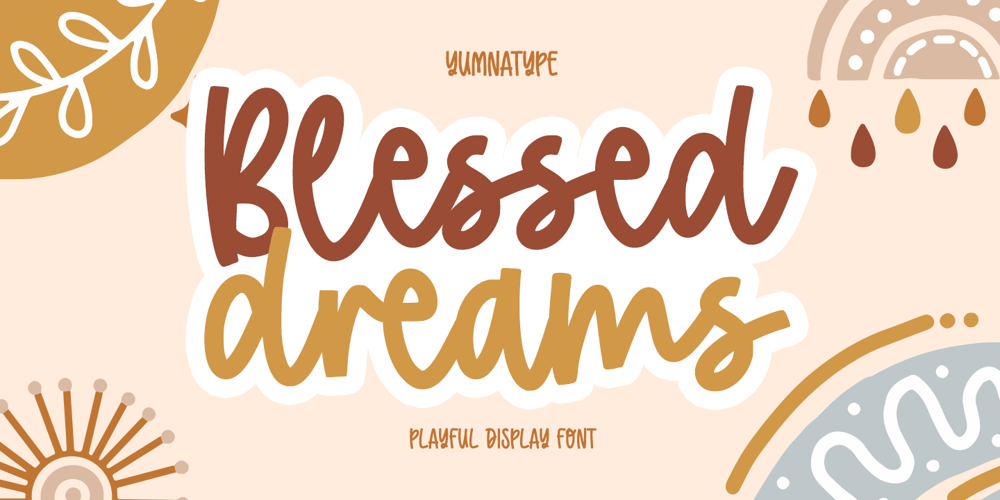
Blessed Dreams
Blessed Dreams font
Blessed Dreams Font Family was designed by Donis Miftahudin and published by Yumna Type. Blessed Dreams contains 2 styles and family package options. It could be such frustrating work to find an attractive display font in accordance with your design project. Moreover, a wrong display font will only result in the failure of your design leaving your customers uninterested. However, you should feel no worry as we have the best answer to your problems.Blessed Dreams is a visually attractive display font with soft, gentle nuances caused by the swinging end of the wipes and curves. Each of the letters is interconnected as in the cursive font and the proportions are relatively similar for a legibility reason. Furthermore, you can apply this font, which also provides you with a clipart as a bonus, for big text sizes to be legible. In addition, you may make use of the available features here.Features: Multilingual Supports PUA Encoded Numerals and Punctuations Blessed Dreams fits best for various design projects, such as brandings, posters, banners, headings, magazine covers, quotes, printed products, merchandise, social media, etc. Find out more ways to use this font by taking a look at the font preview.Thanks for purchasing our fonts. Hopefully, you have a great time using our font. Feel free to contact us anytime for further information or when you have trouble with the font. Thanks a lot and happy designing.